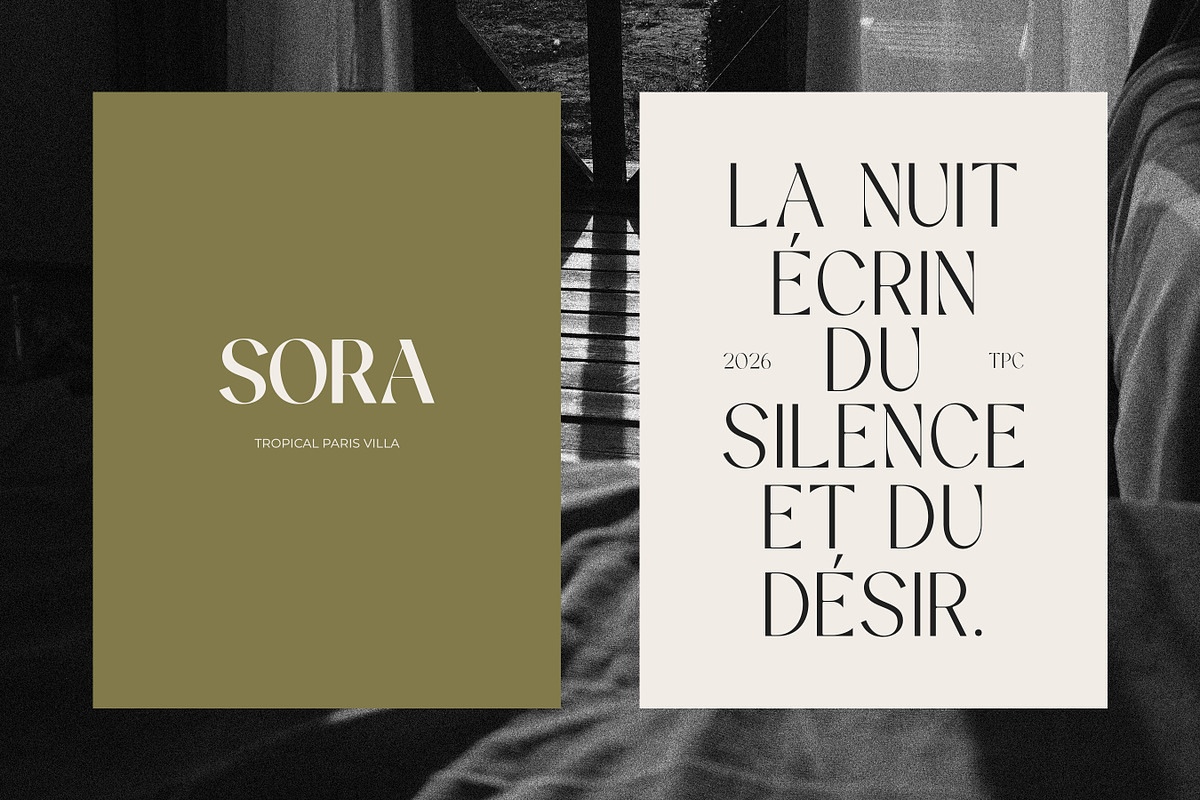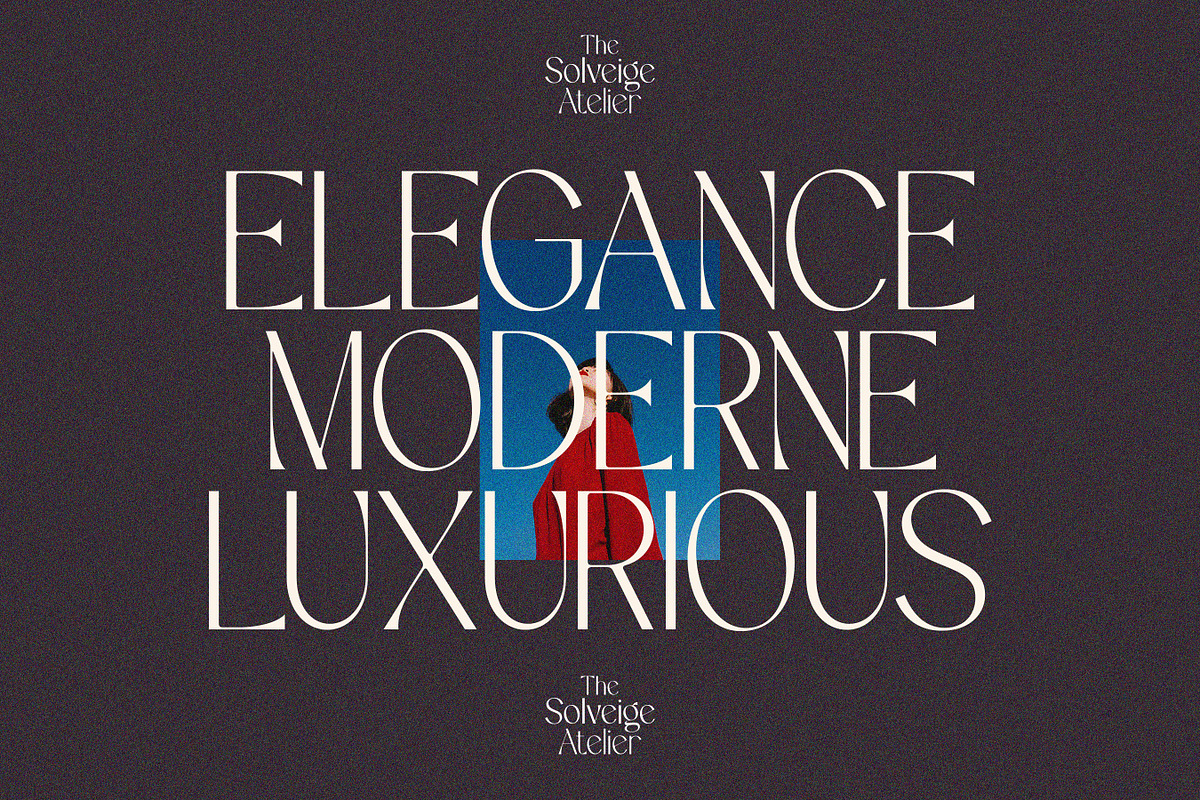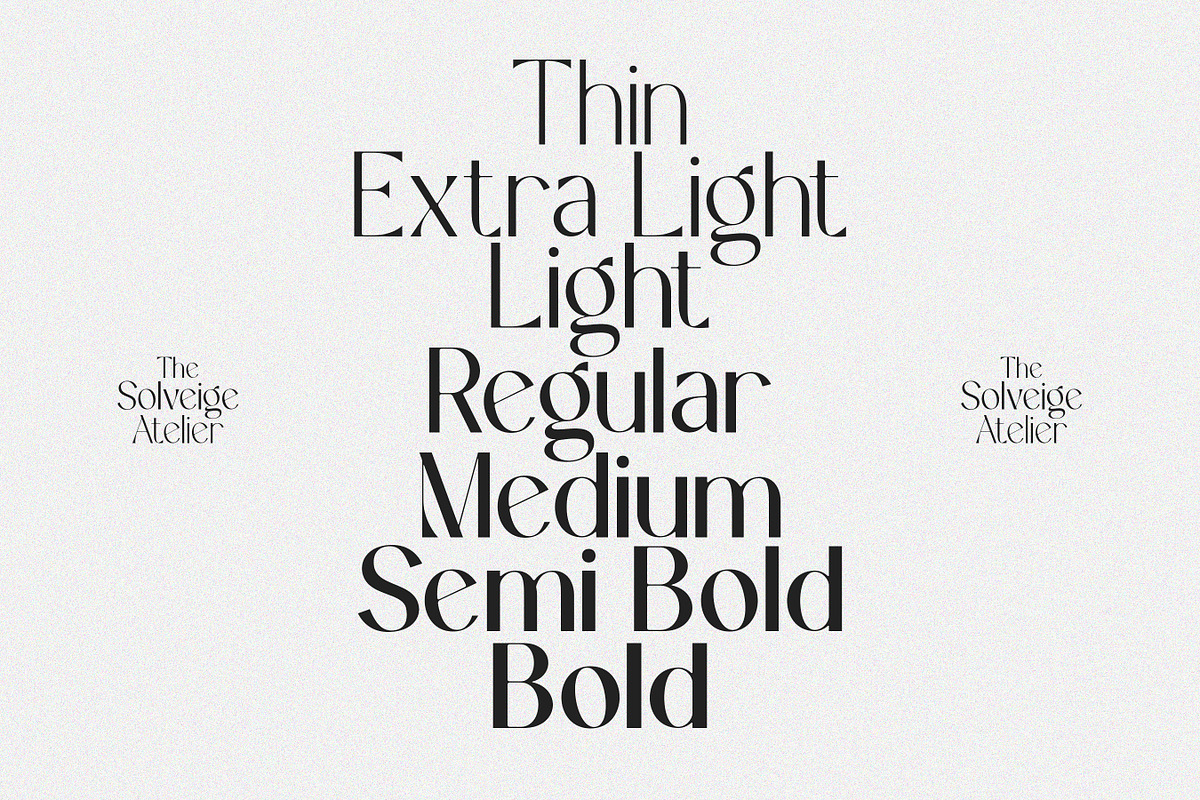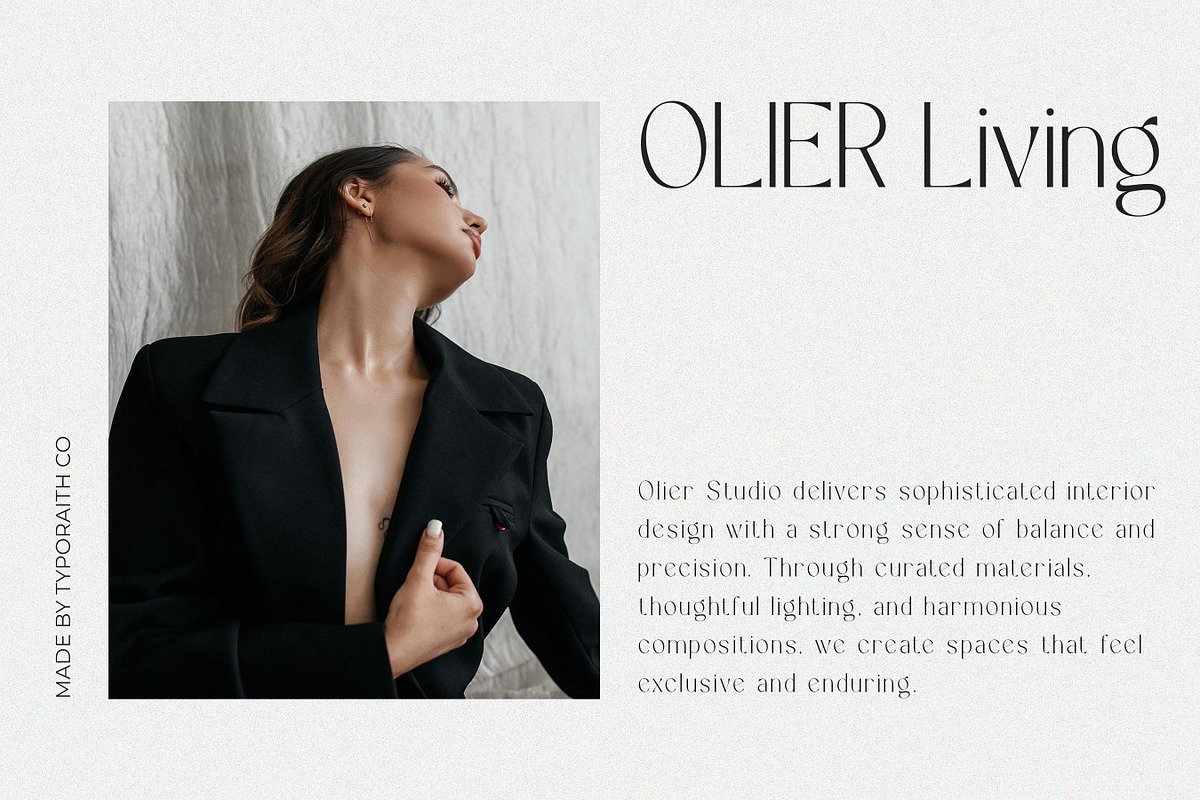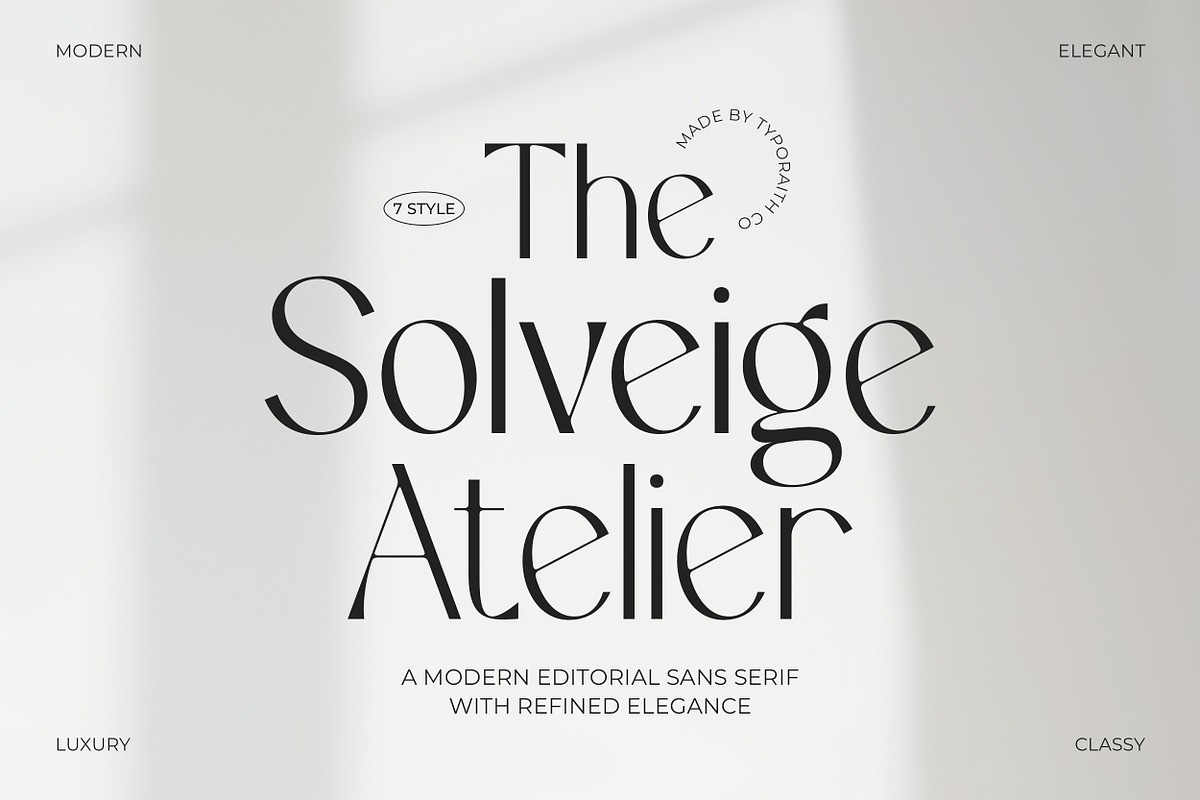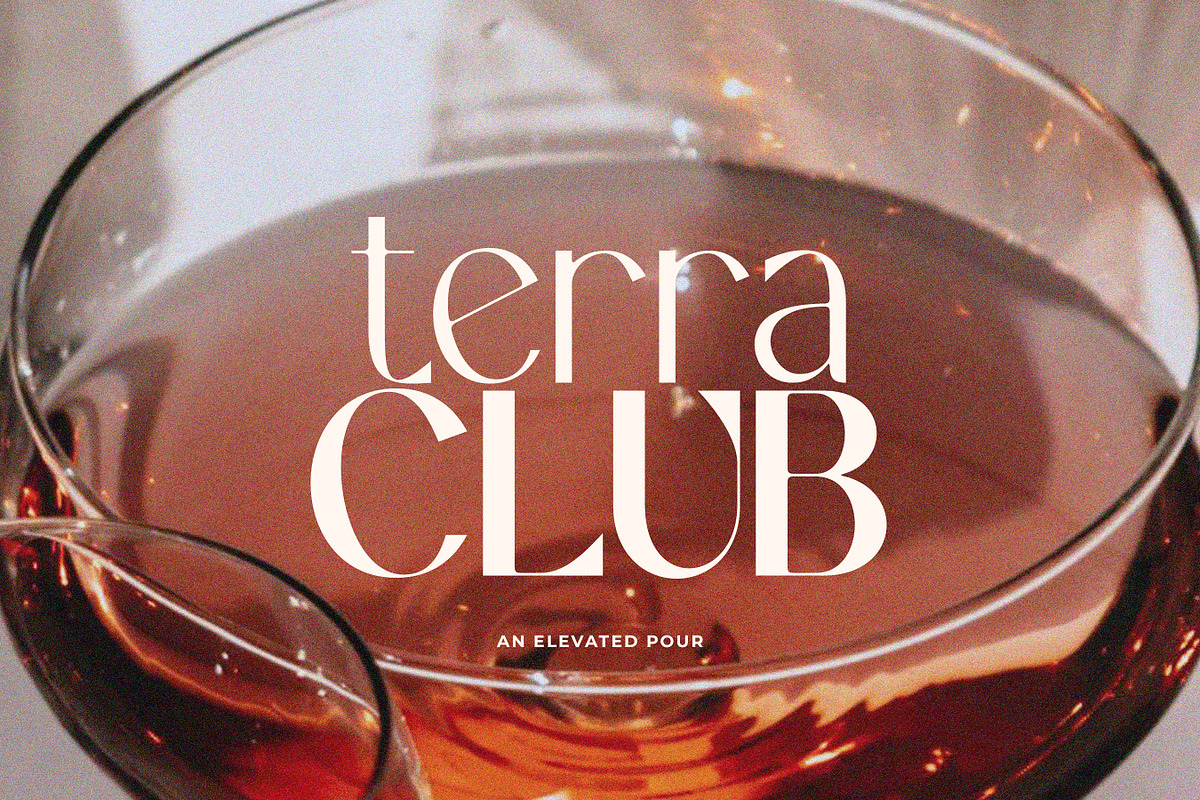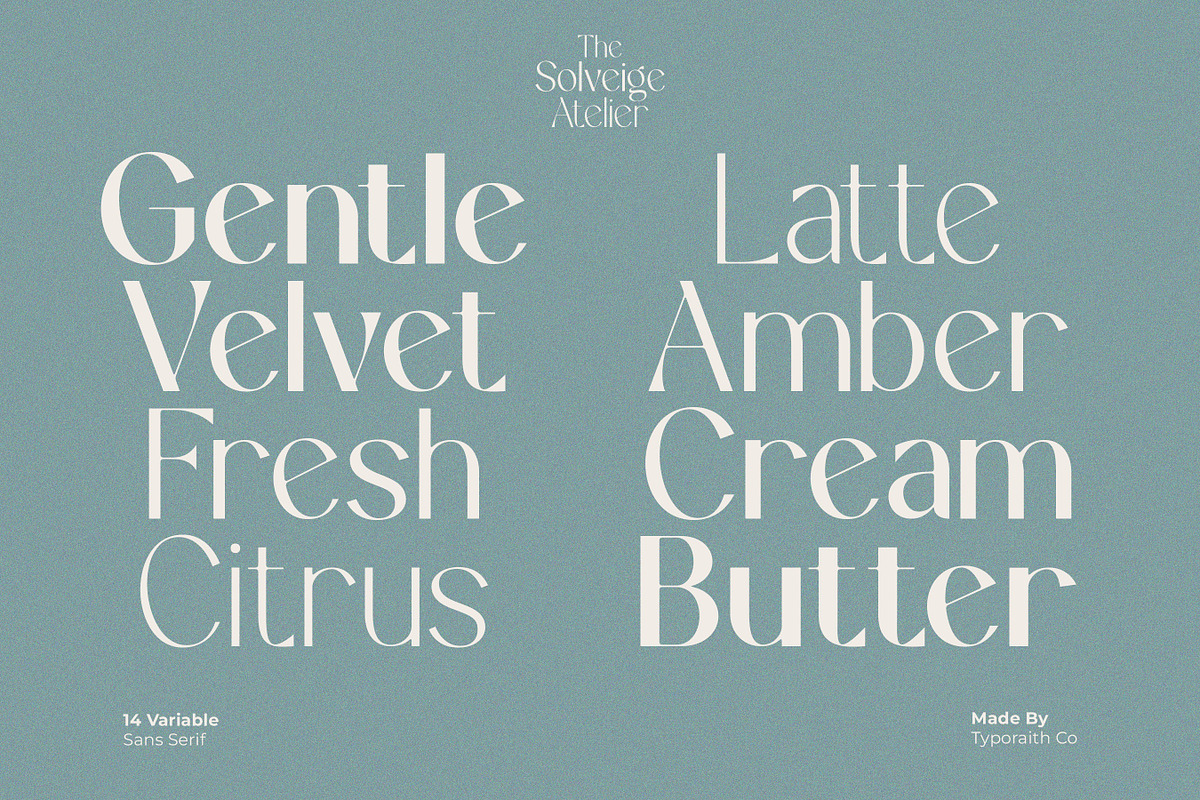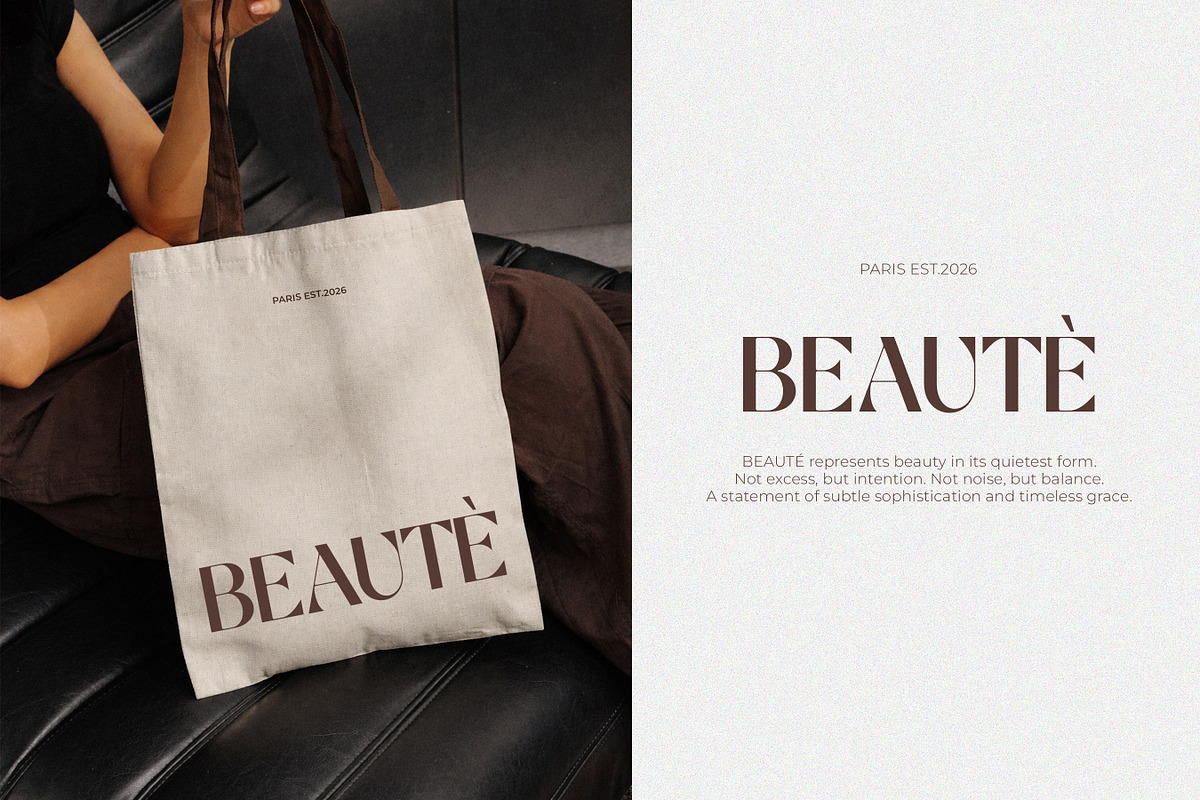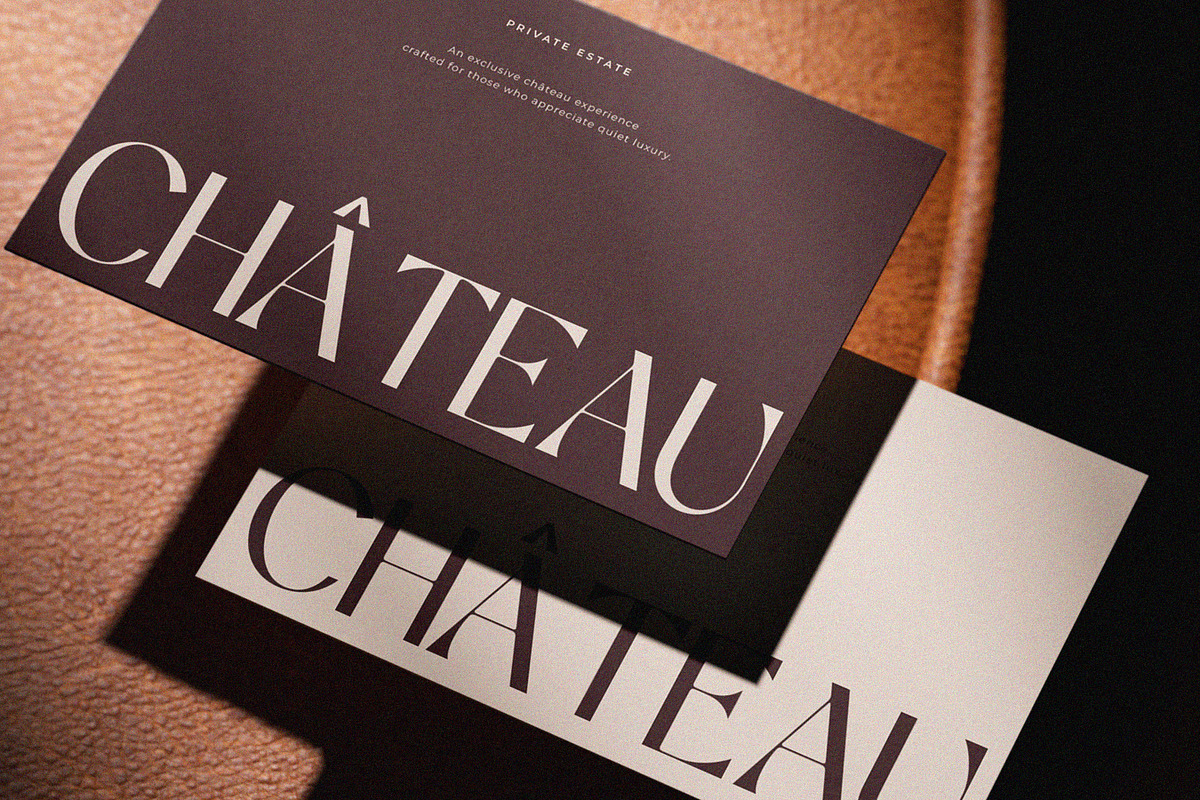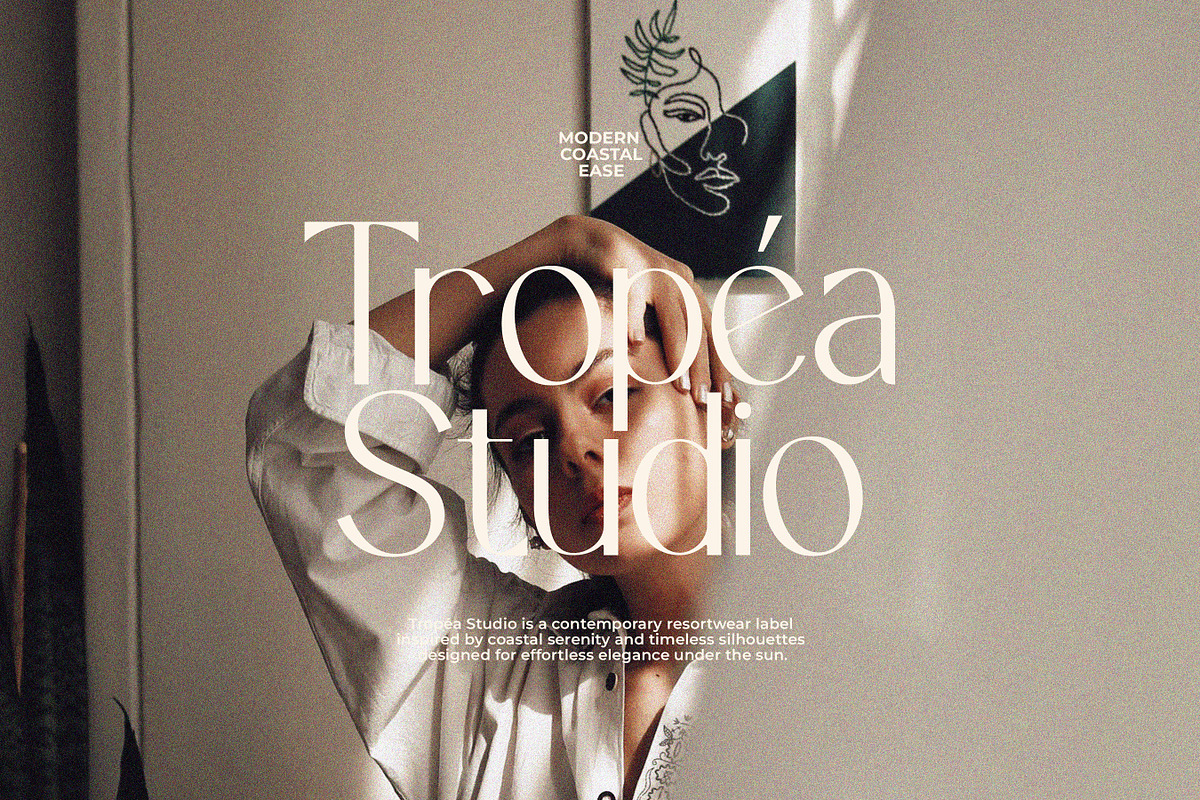
The Solveige Atelier Font Family
The Solveige Atelier is a sophisticated modern typeface designed to bring elegance, clarity, and editorial charm to your creative projects. Inspired by contemporary fashion magazines and luxury branding, this font blends clean modern structure with graceful letterforms, creating a timeless yet stylish aesthetic.
With its balanced proportions and refined curves, Solveige Atelier is perfect for designers who want to create a luxury, modern, and classy visual identity. Whether used in bold headlines or delicate layouts, this typeface delivers a polished and high-end look.
Designed with versatility in mind, the family includes 7 styles, allowing you to create dynamic typography while maintaining a cohesive and elegant feel across your designs.
- 7 font styles
- Clean modern editorial look
- Elegant and professional spacing
Solveige Atelier is crafted to elevate your designs with a modern editorial aesthetic and timeless sophistication.